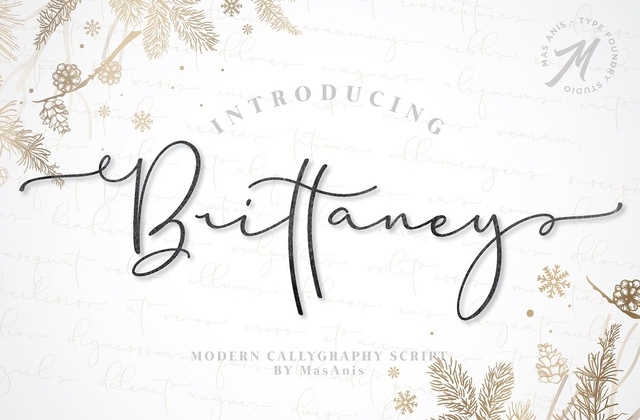
Brittaney Font
This elegant script typeface is perfect for feminine branding, luxury beauty products, wedding photography logos, boutique fashion labels, spa and wellness materials, high-end cosmetics packaging, elegant stationery design, and sophisticated lifestyle brand communications.
What makes this font exciting is its graceful flowing curves and refined calligraphic qualities that capture the essence of handwritten elegance with contemporary sophistication. The delicate letterforms feature smooth connections and gentle flourishes that create a sense of luxury and femininity, while maintaining excellent readability across various applications from intimate personal projects to upscale commercial branding.
The Brittaney Font family includes regular and bold weights, along with decorative swashes, elegant ligatures, and ornamental elements that enhance the script's sophisticated appeal for comprehensive luxury design applications.
The captivating personality of Brittaney Font shines through its perfect balance of strength and delicacy that reflects modern feminine empowerment. Each letter displays thoughtful proportions and gentle curves that create visual warmth while maintaining professional sophistication and contemporary relevance. This exceptional design approach makes it particularly suitable for women's fashion magazines, luxury hotels targeting female travelers, premium maternal care brands, and exclusive beauty salons requiring typography that communicates both elegance and approachability.
Creative professionals will find this font invaluable for establishing emotional connections with sophisticated female demographics. From perfume advertisements to boutique hotel branding, from luxury packaging to editorial spreads, Brittaney Font maintains its elegant character while adapting to diverse design requirements. The font's extensive stylistic alternates, contextual ligatures, and decorative flourishes provide exceptional creative flexibility, ensuring designers can achieve the perfect balance of refinement and personality for upscale brand communications that celebrate feminine sophistication across all media platforms and luxury market segments.